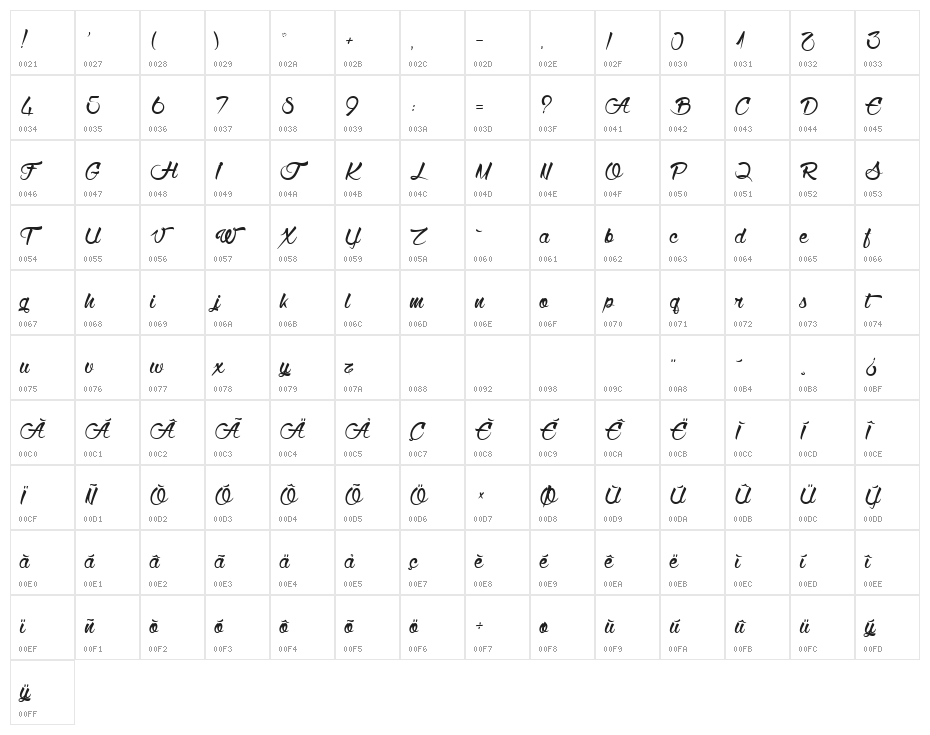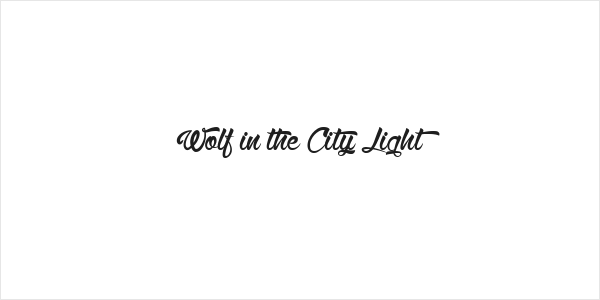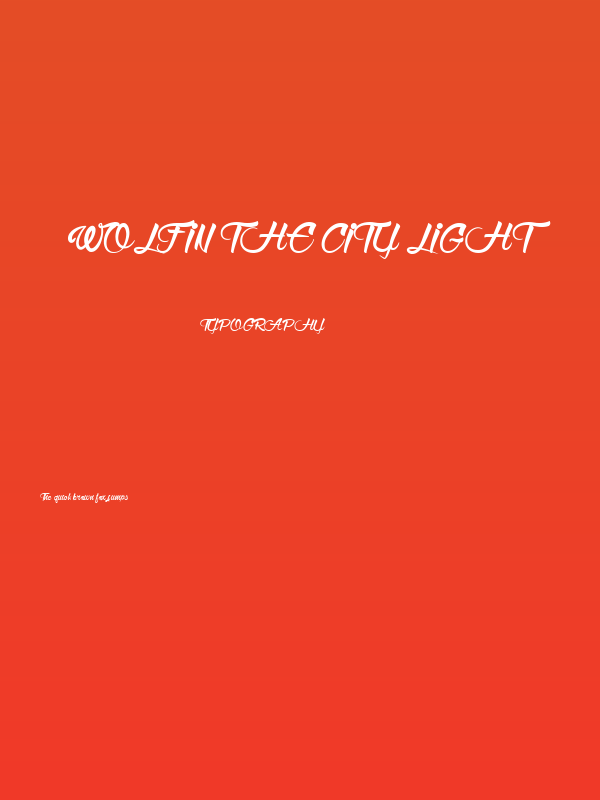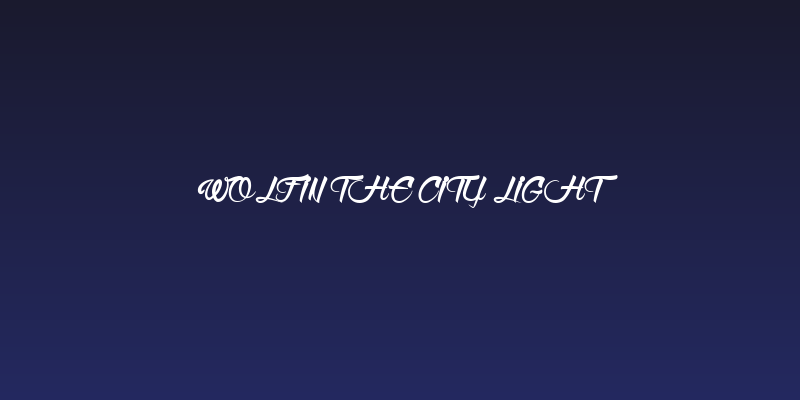
Wolf in the City Light Font
Wolf in the City Light Description
This font features a dynamic and flowing script style, characterized by its elegant curves and smooth connections between letters. The uppercase letters exhibit a sophisticated flair with extended strokes and loops, while the lowercase letters maintain a consistent rhythm and balance. The numerals are designed with a similar fluidity, ensuring cohesion across all characters. Special characters are crafted with attention to detail, complementing the overall aesthetic. This font's design is both artistic and legible, making it suitable for a variety of creative applications.
| Proposed Projects | Ideal for wedding invitations, branding, logo design, and elegant stationery. |